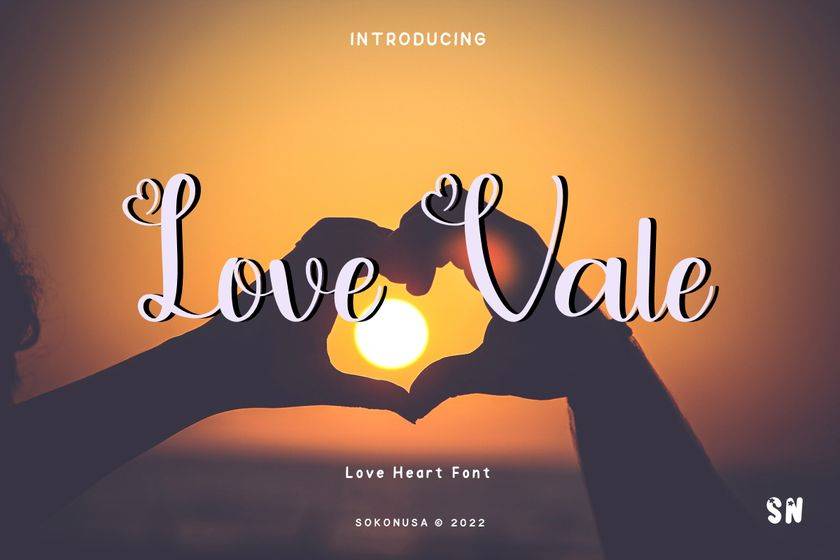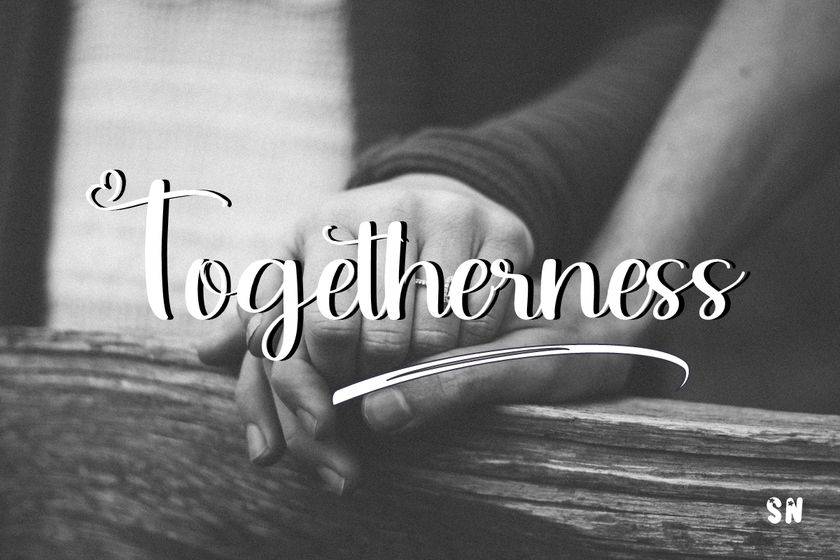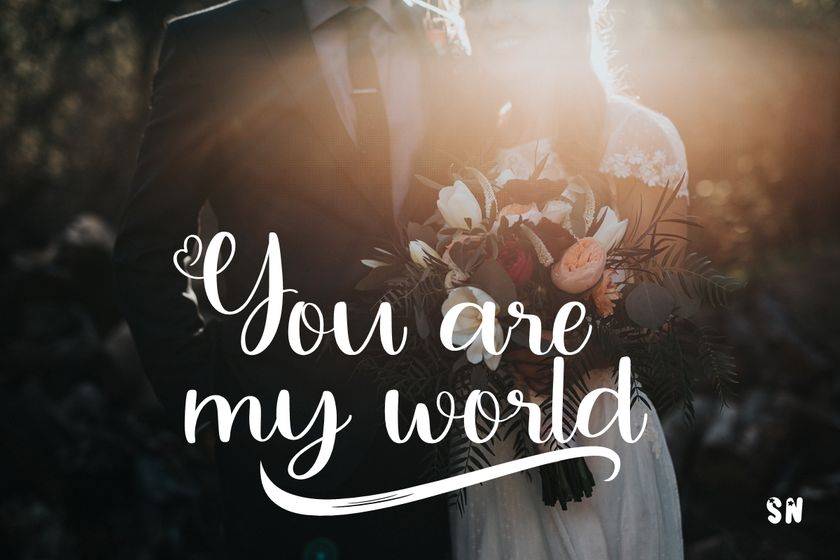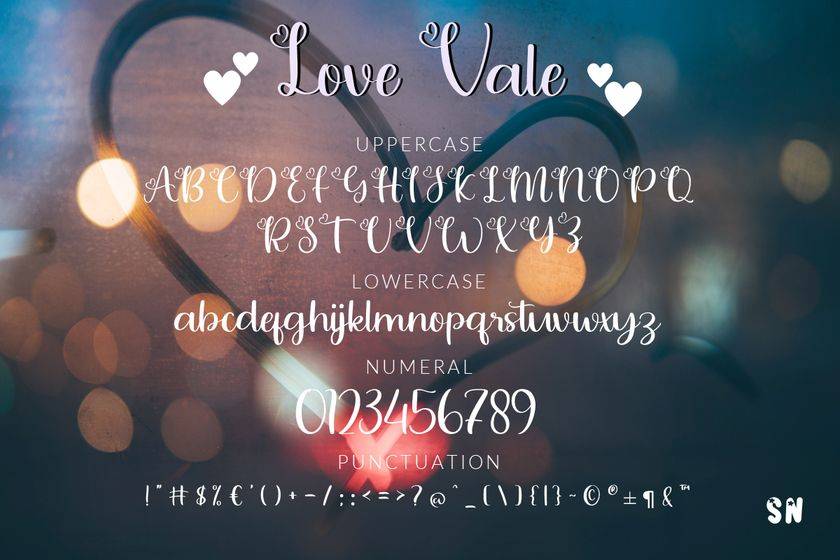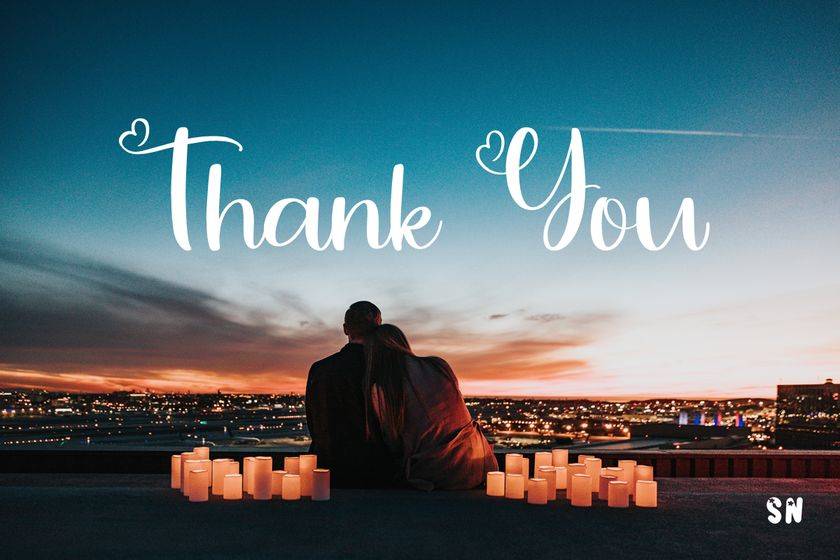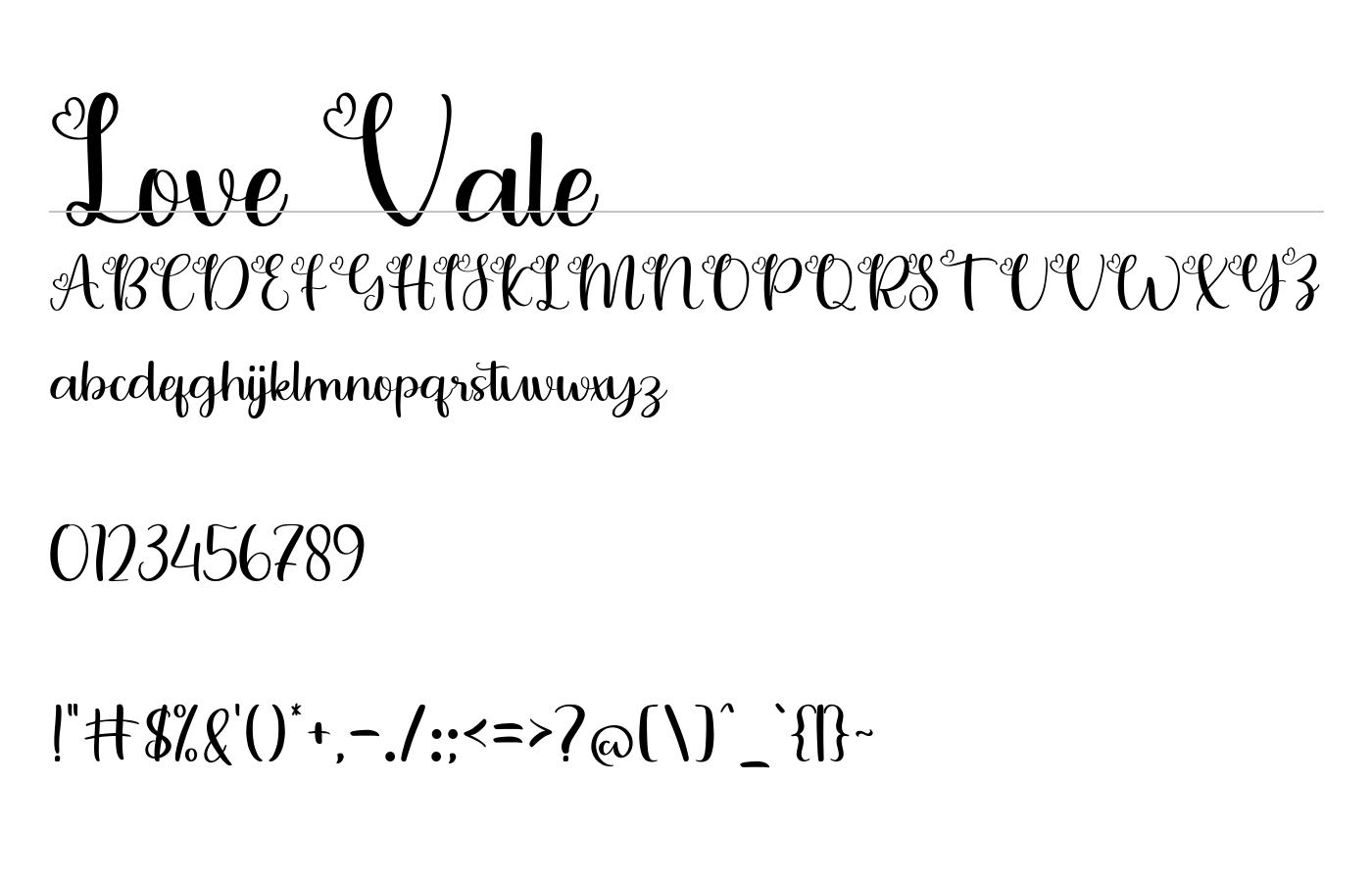
Love Vale is a charming script font with a playful and romantic feel, characterized by its smooth, flowing strokes and distinctive heart-shaped flourishes on uppercase letters. Its light to regular weight and moderate contrast lend it an elegant yet approachable style, making it ideal for wedding invitations, greeting cards, branding, and other creative projects that seek a warm and whimsical touch. This font blends casual sophistication with unique detail, perfect for adding personality and grace to headlines and decorative text.
Love Vale Font
About Love Vale Font
| Font family | Love Vale Font |
| Release date | 2022-02-14 |
| Designer | Soko Nusa |